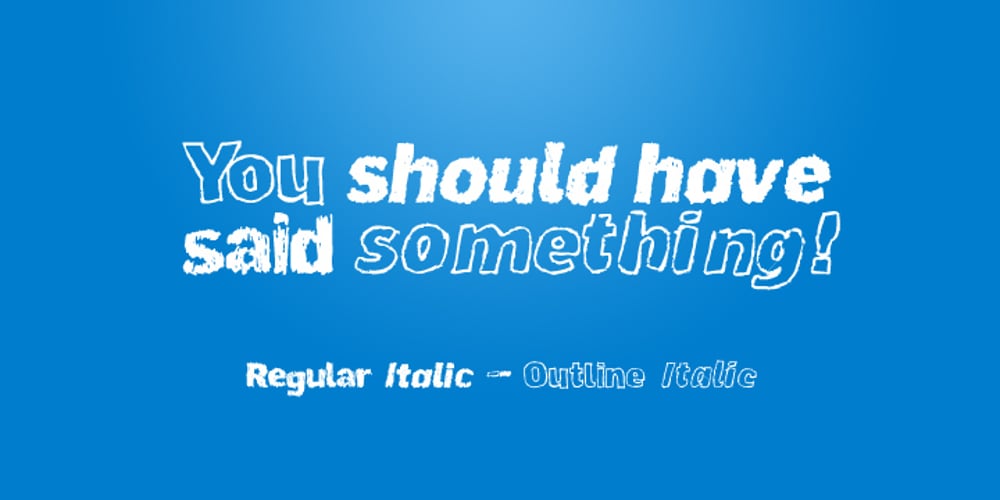
Ardy Mass
Ardy Mass font
Ardy Mass Font Family was designed by Dennis Shinobi and published by Substance. Ardy Mass contains 4 styles and family package options. Ardy Mass is a hand drawn and scanned type face available in italic, italic outline, regular & regular outline. Ardy Mass was drawn at a small scale with a fine nibbed black permanent marked pen.